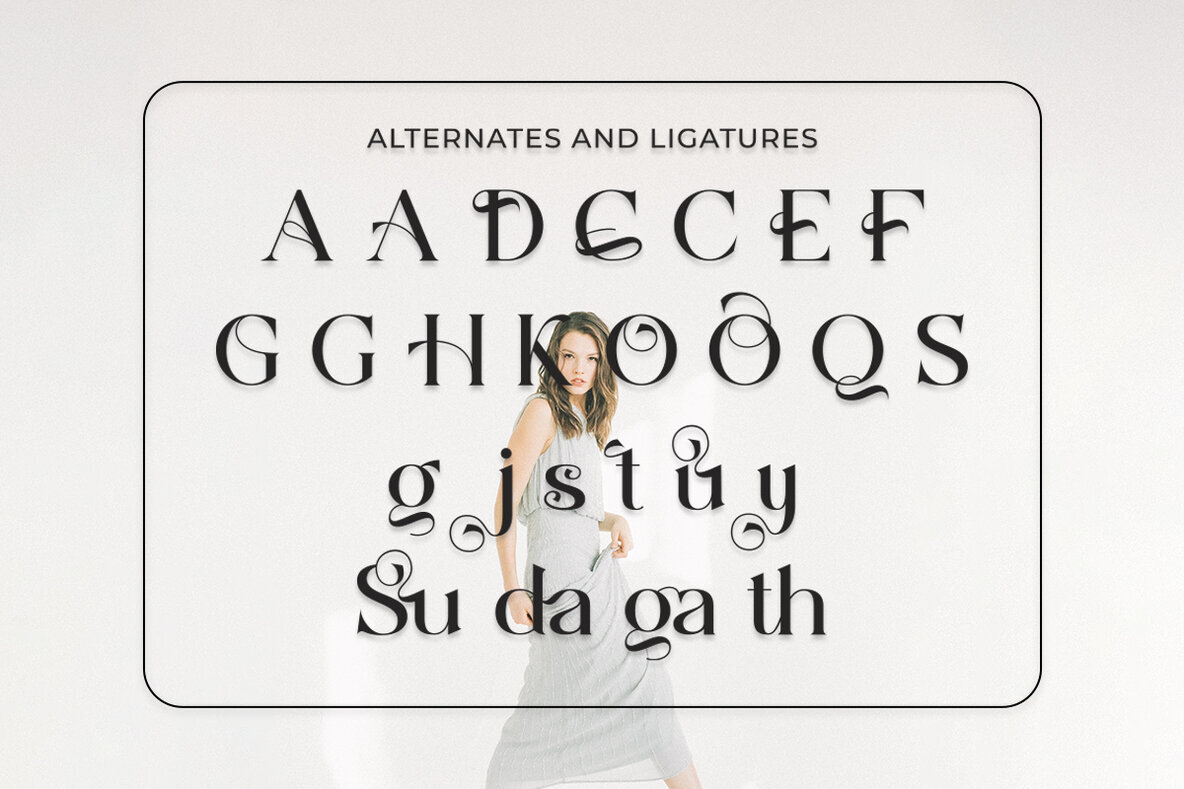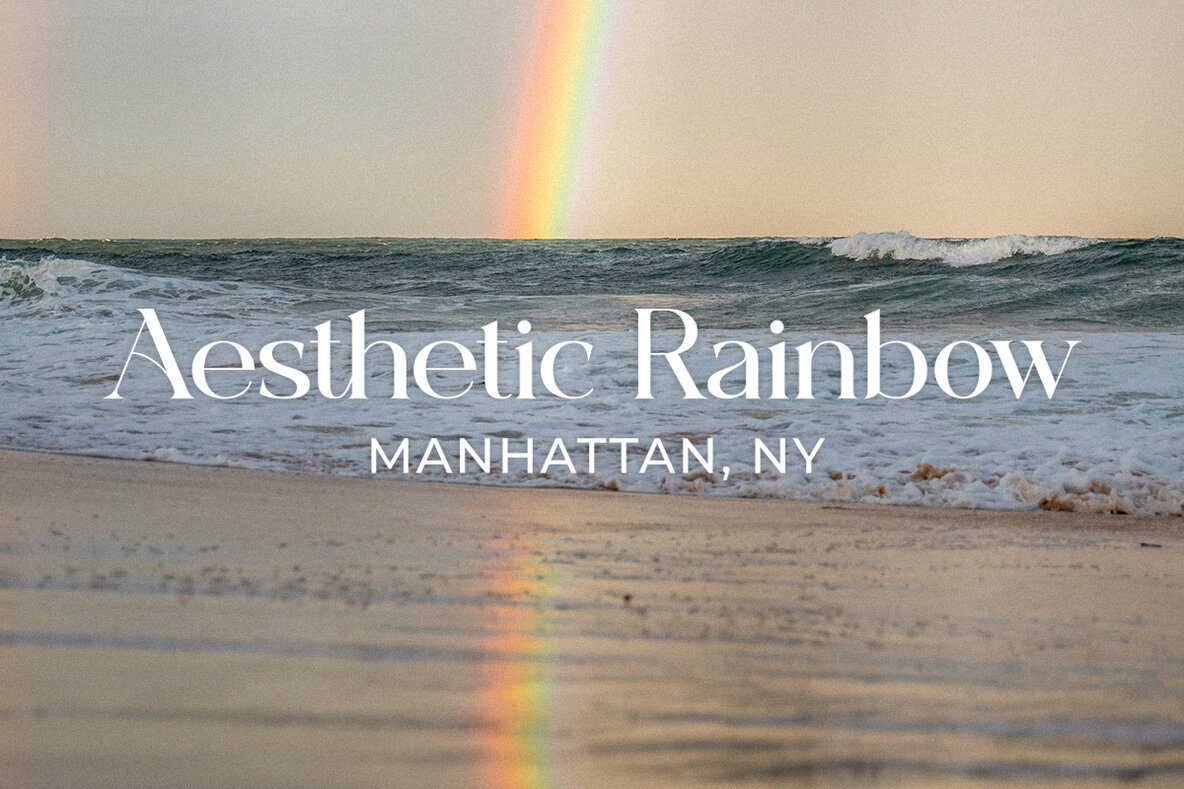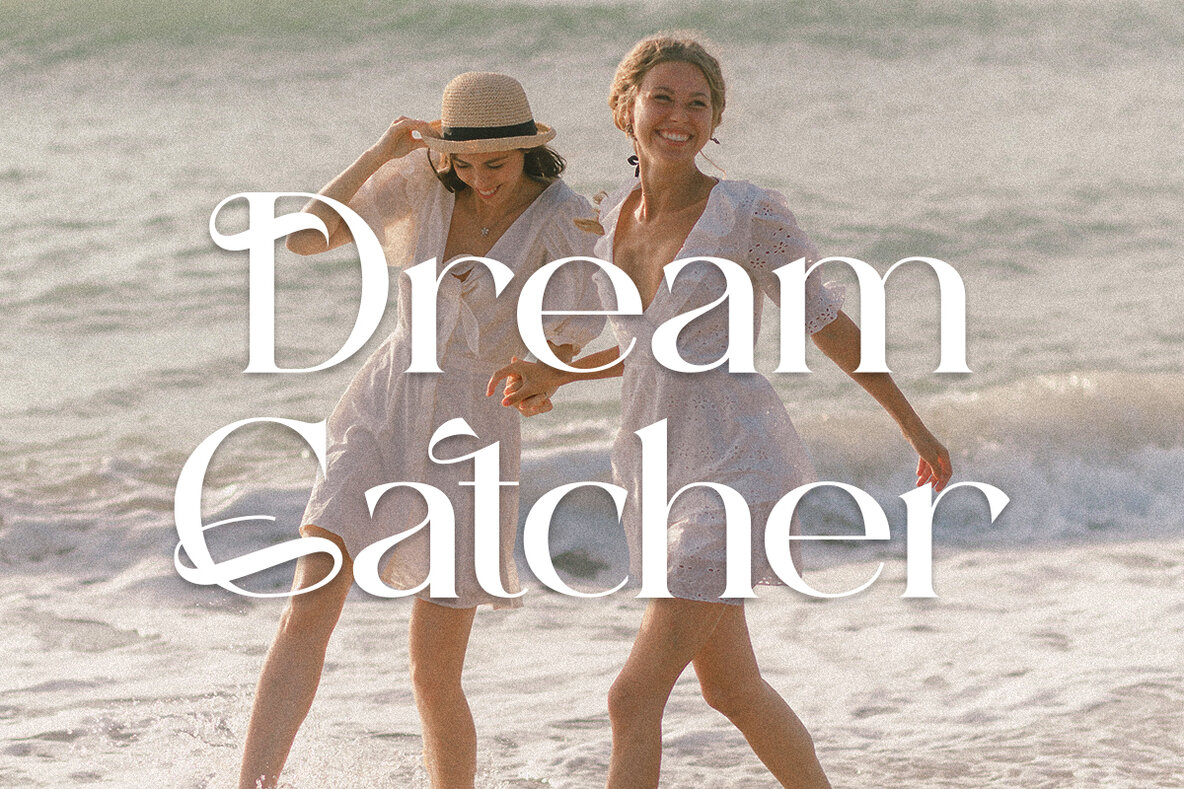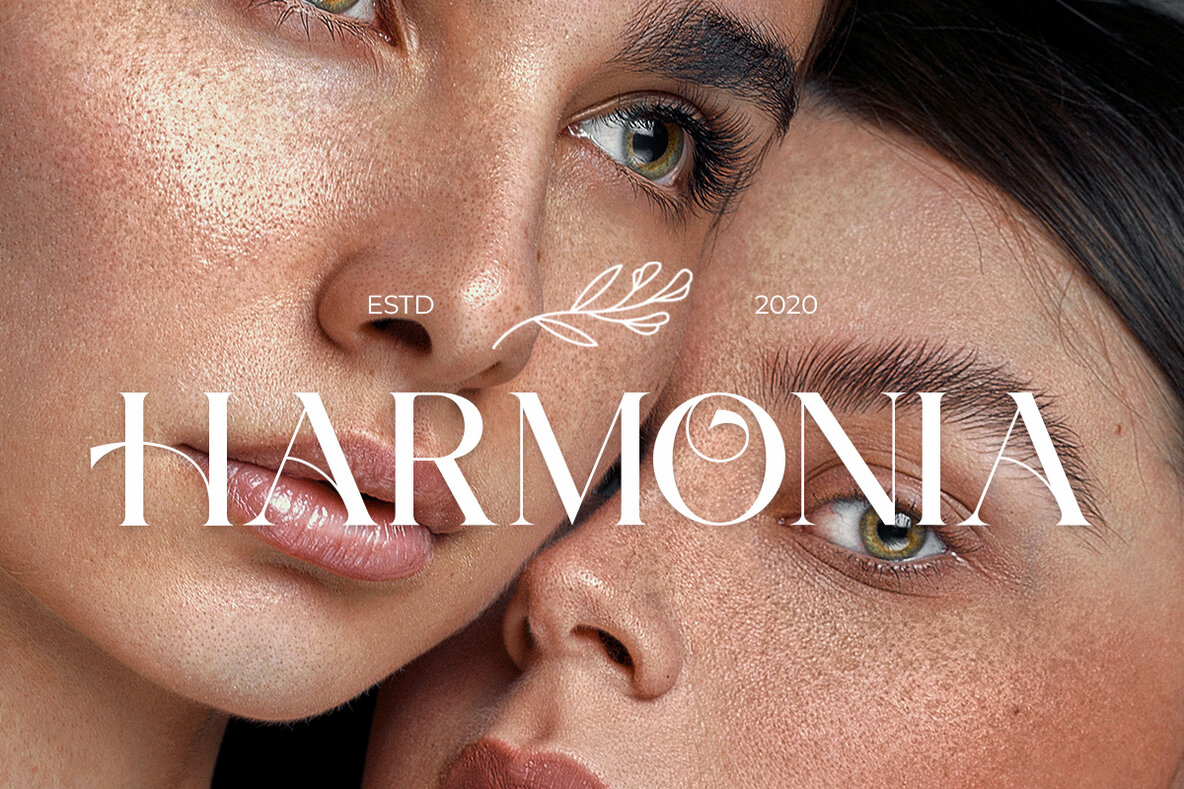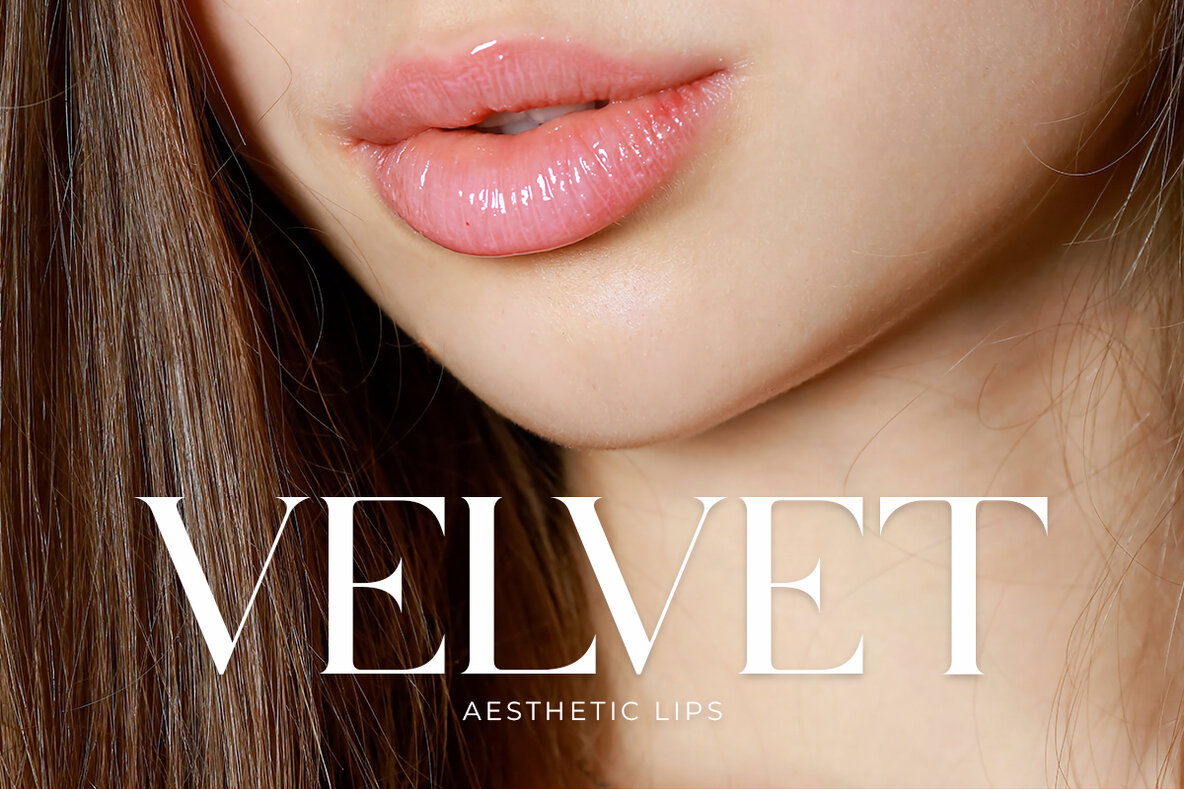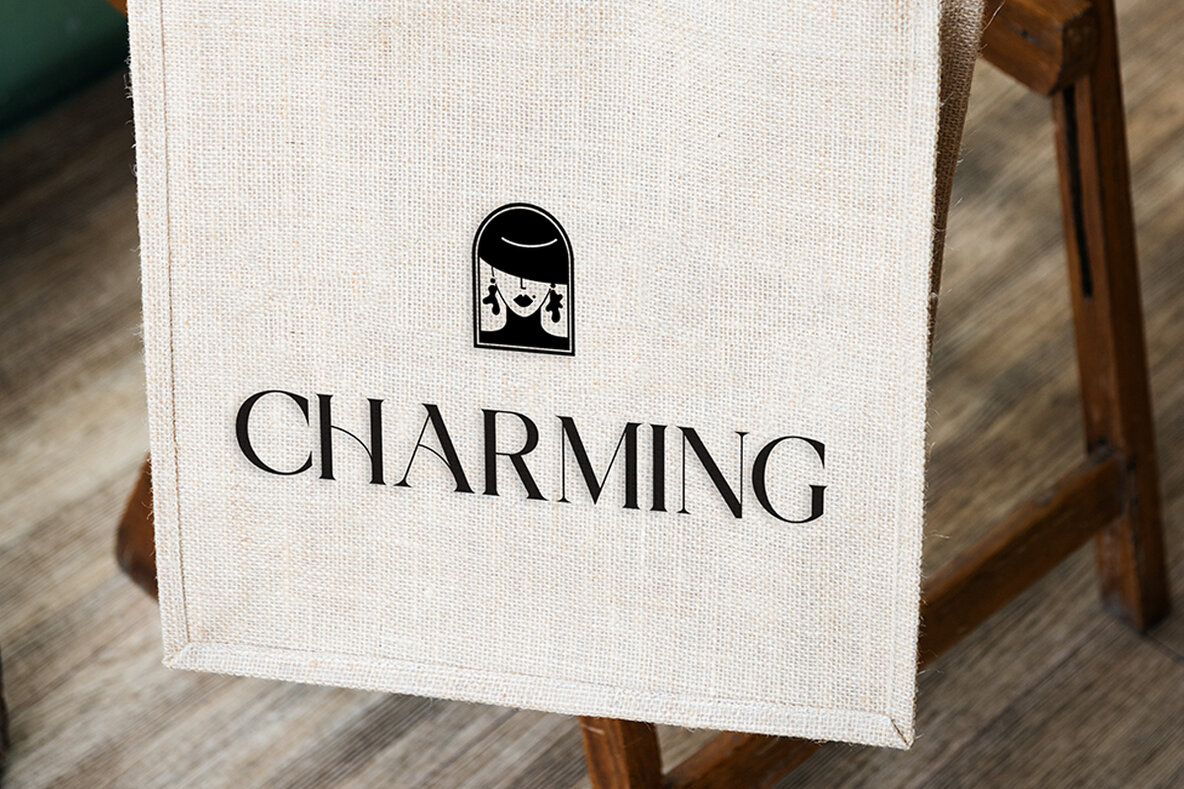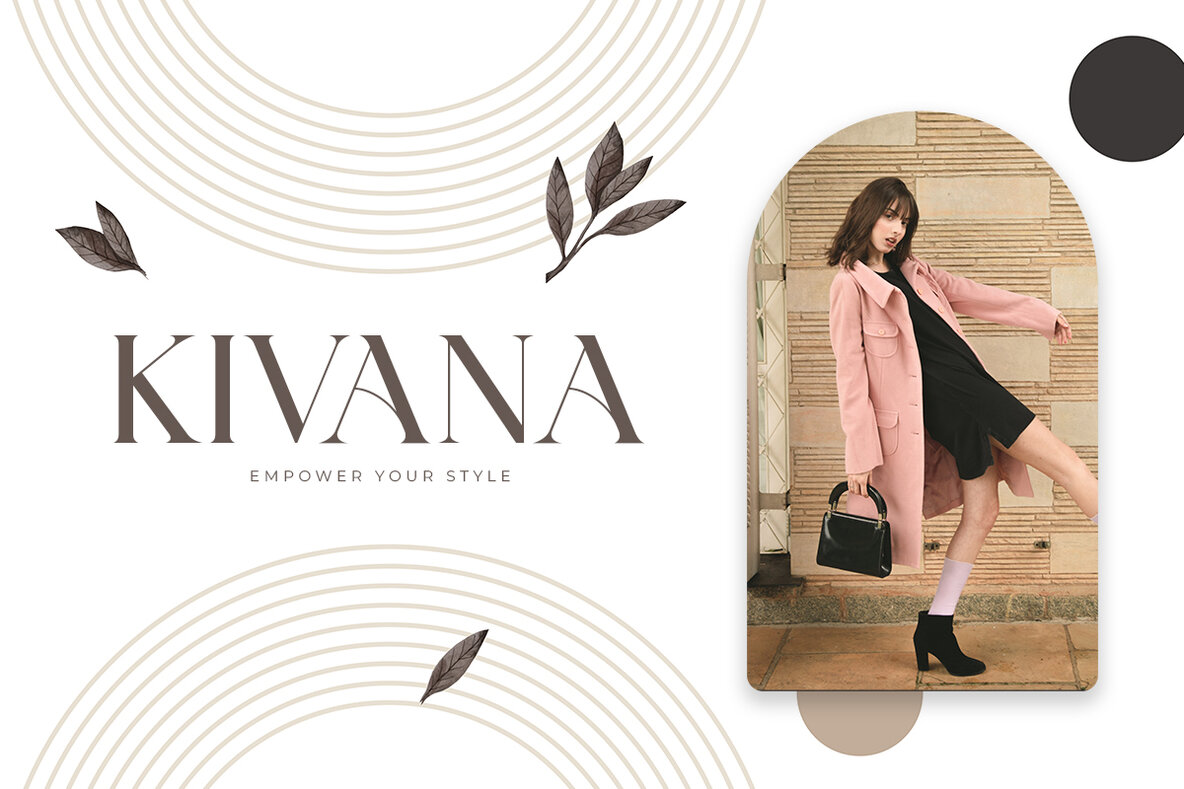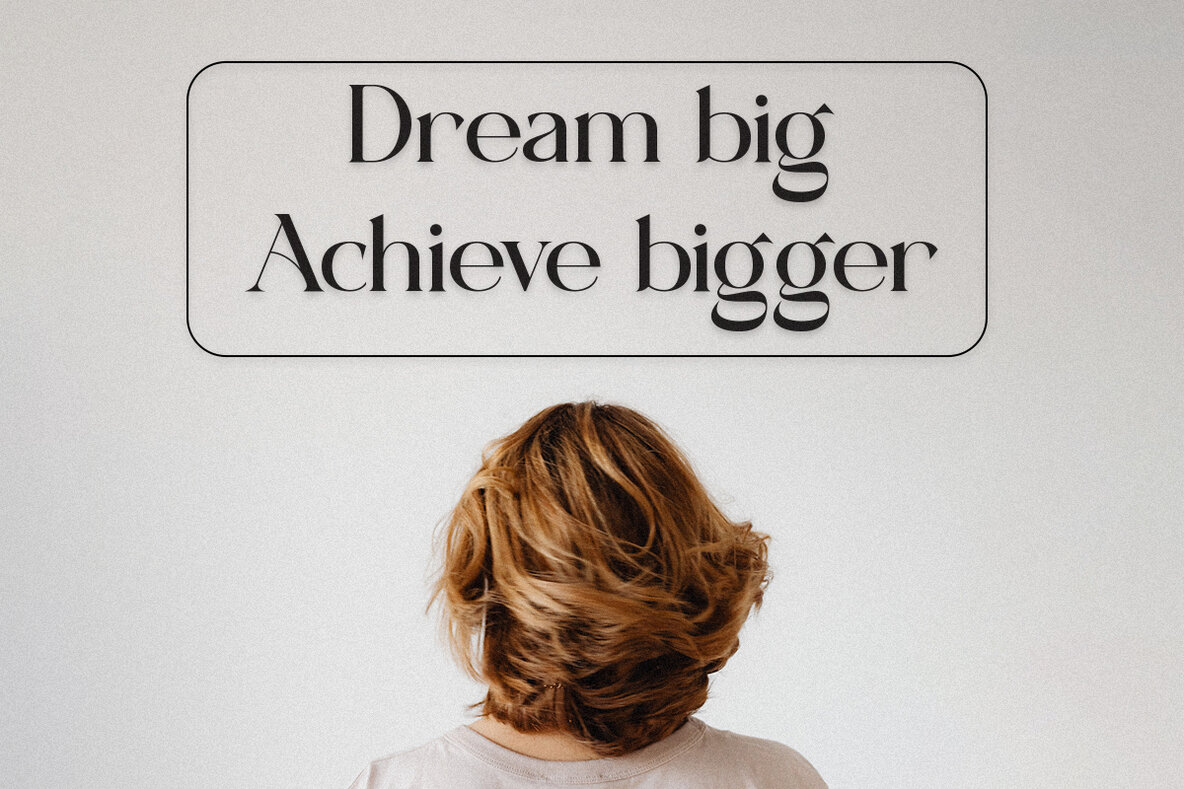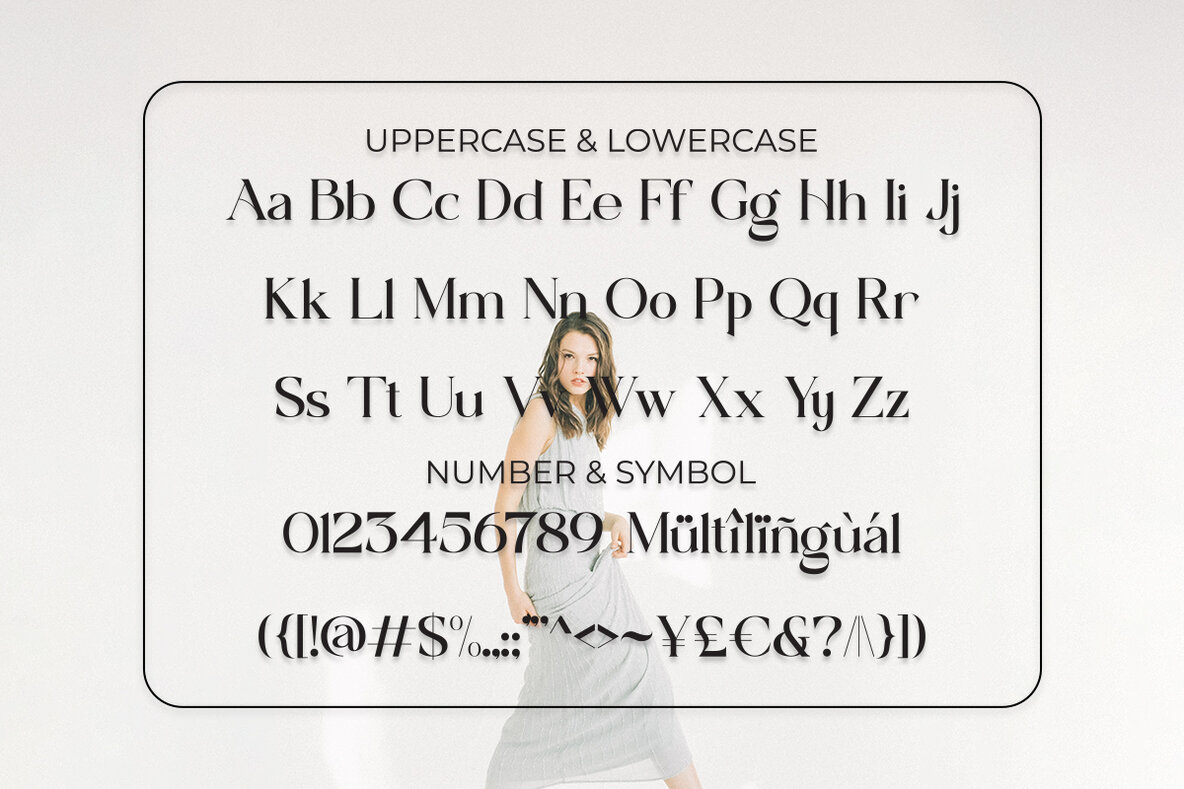
Eye Quirky 1
Eye Quirky is a Modern elegant serif typeface with Unique alternative , multilingual support with perfect kerning.
This typeface is perfect for an elegant & luxury logo , classy editorial design, women's magazine, fashion brand , cosmetic brand, fashion promotion , modern advertising design, invitation card, art quote, home decoration , book/cover titles, special events, Tote bag, T-shirt, Advertising and much more.